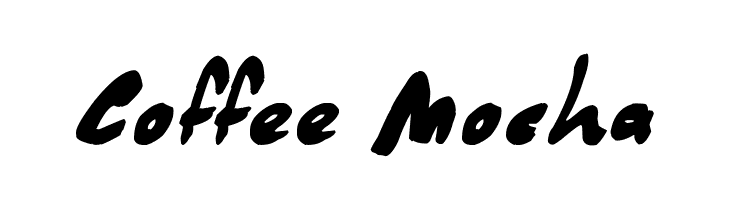
A sleek, modern font with geometric structure and clean lines.
A bold, decorative font with a unique outlined, three-dimensional effect.
A bold, distressed font with a vintage, rugged appearance.
A bold, classic serif font with strong, elegant characters.
A bold, slanted font with sharp edges and a retro-futuristic style.
A bold, cartoonish font with a playful and dynamic style.
A lively handwritten font with expressive and dynamic letterforms.
A bold, dynamic font with decorative and modern styles.
设计师偏爱 Desolator, Mister Haddaris, FUZZY bold, Marques Free Regular and BasicChrome,因为其造型干净、适用范围广—— 从品牌识别到落地页、海报都能胜任。